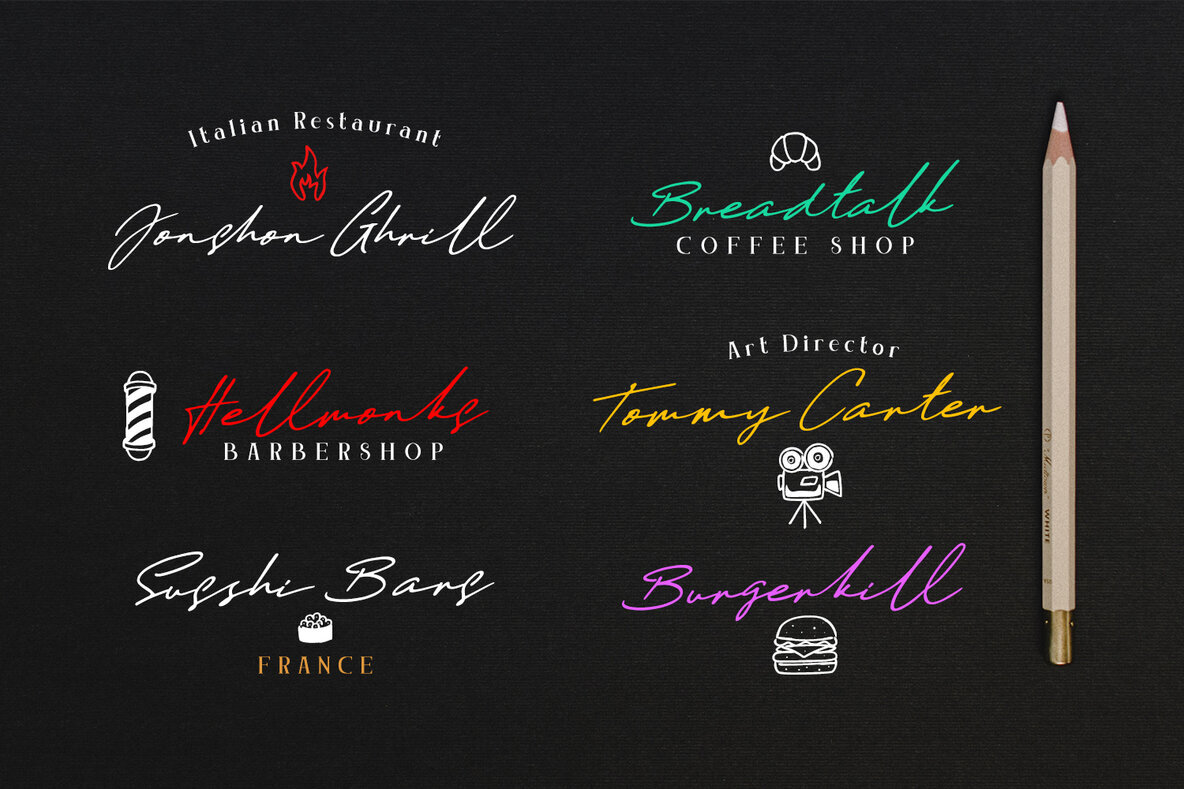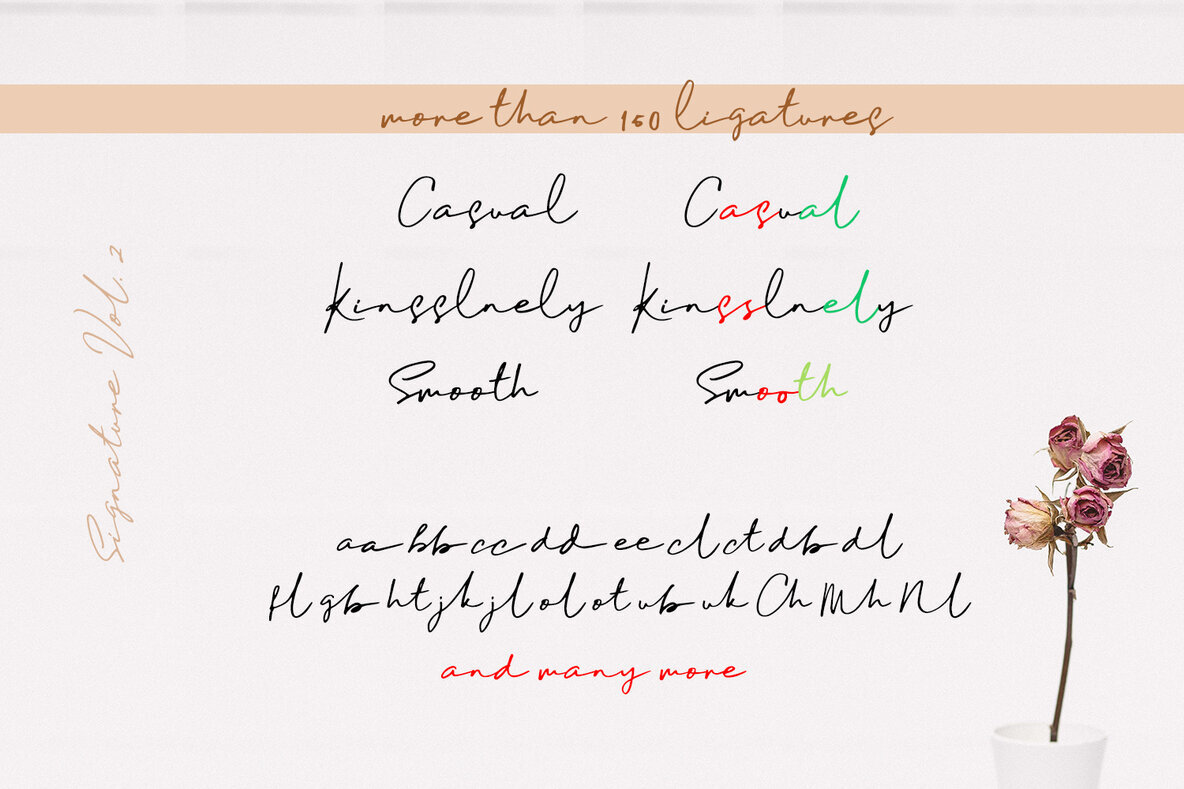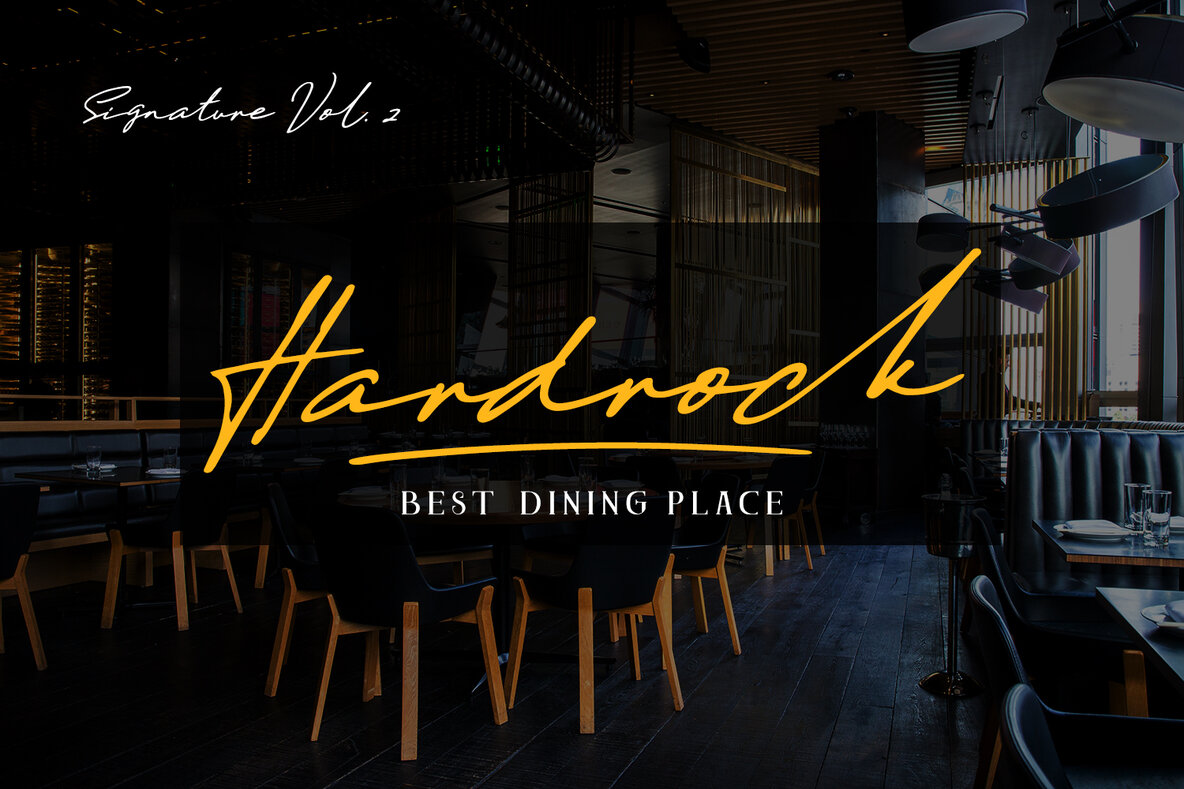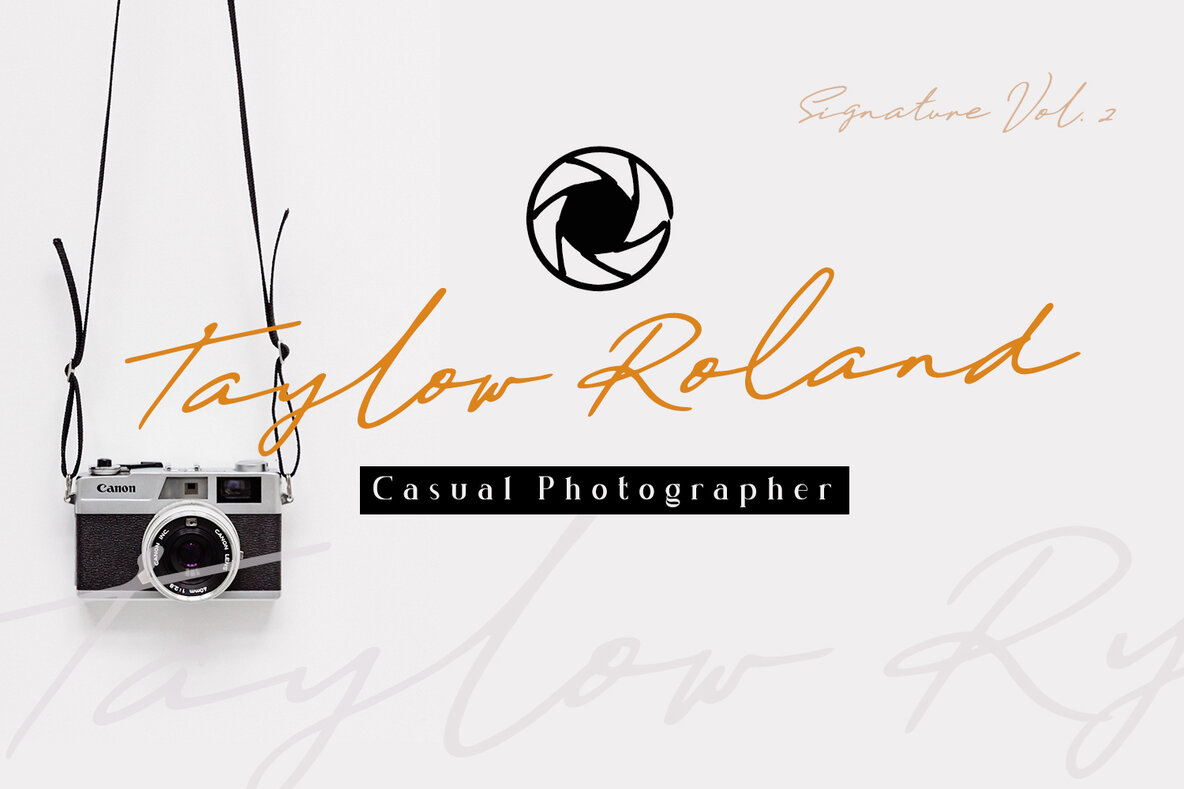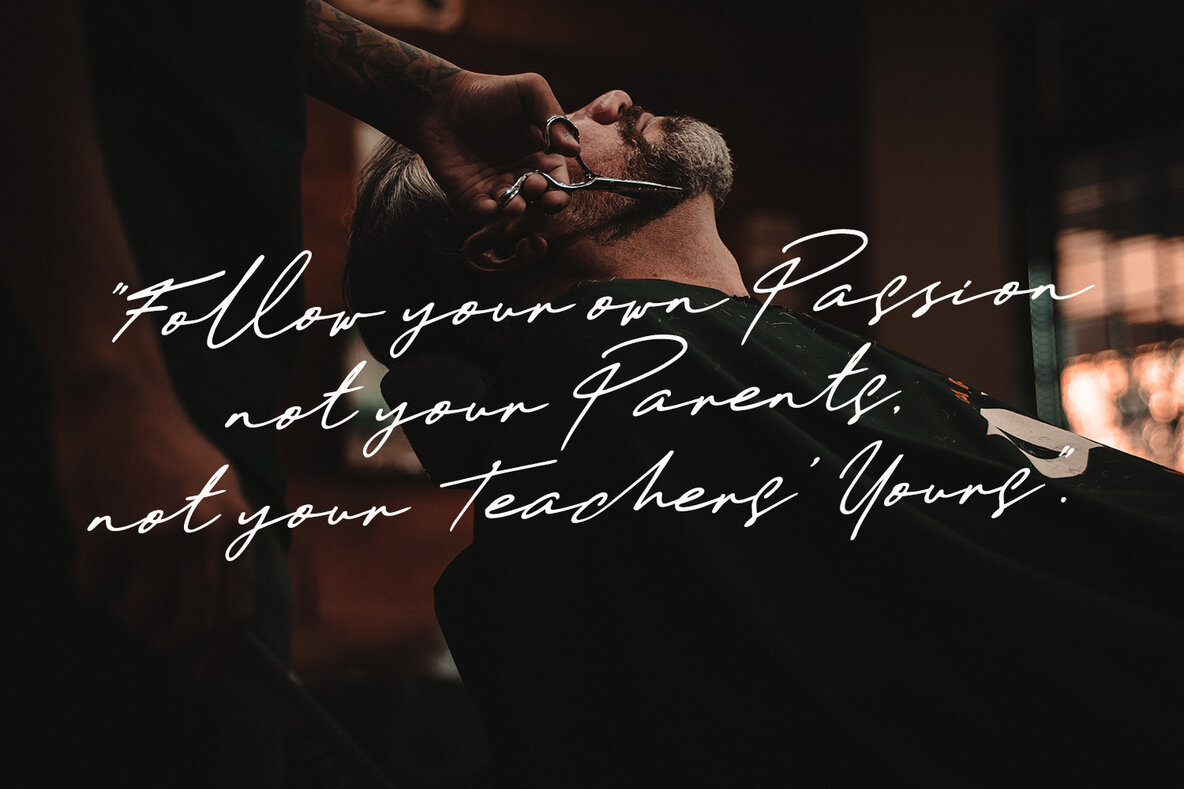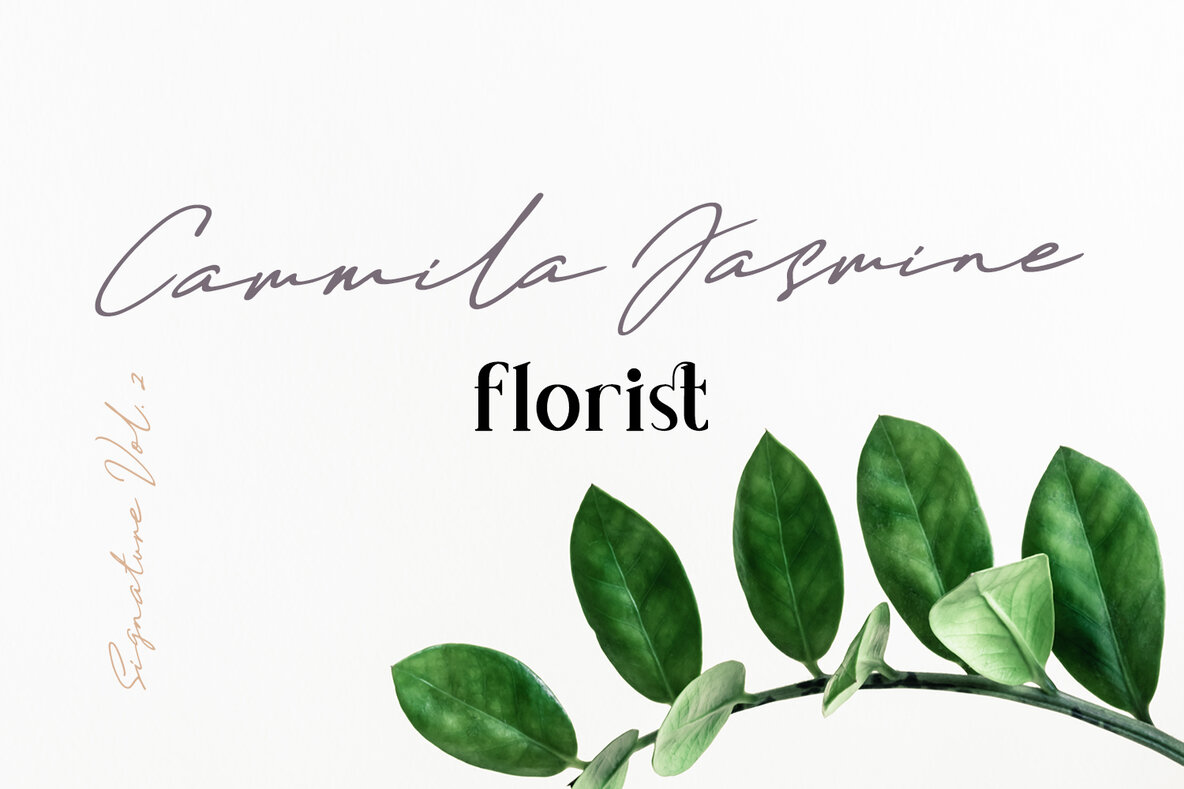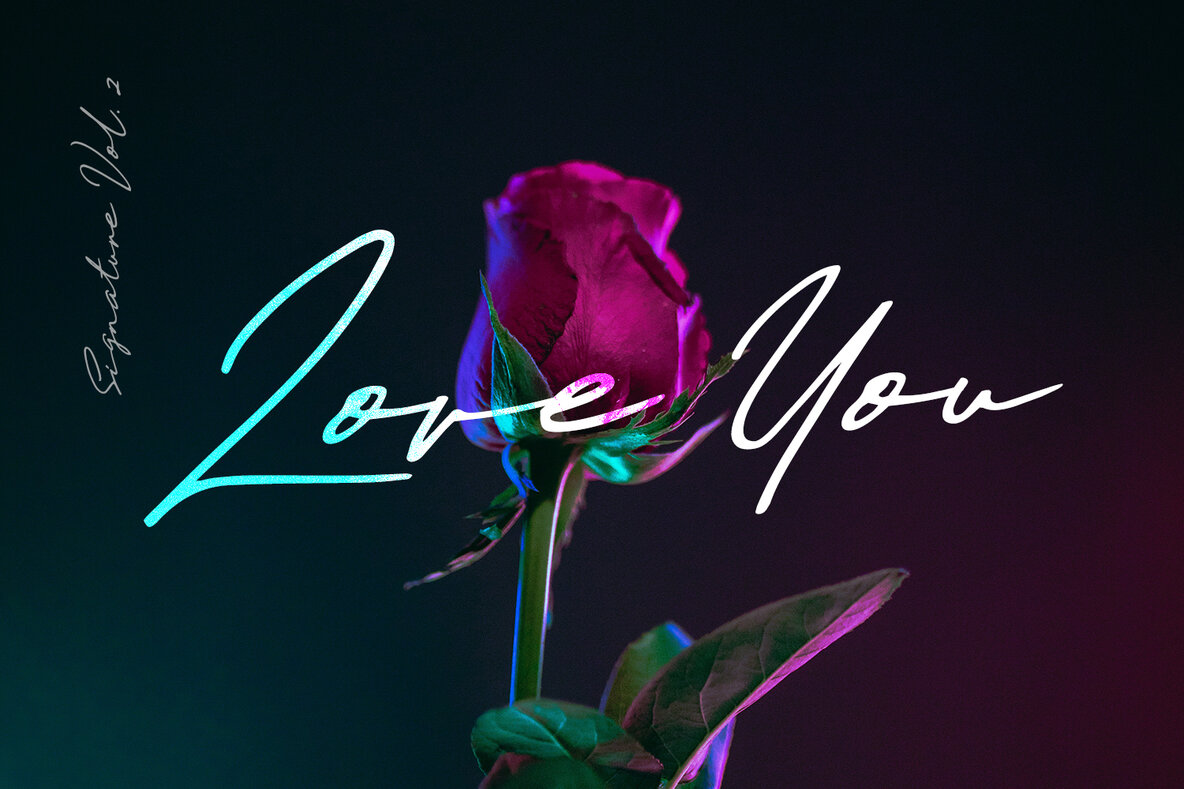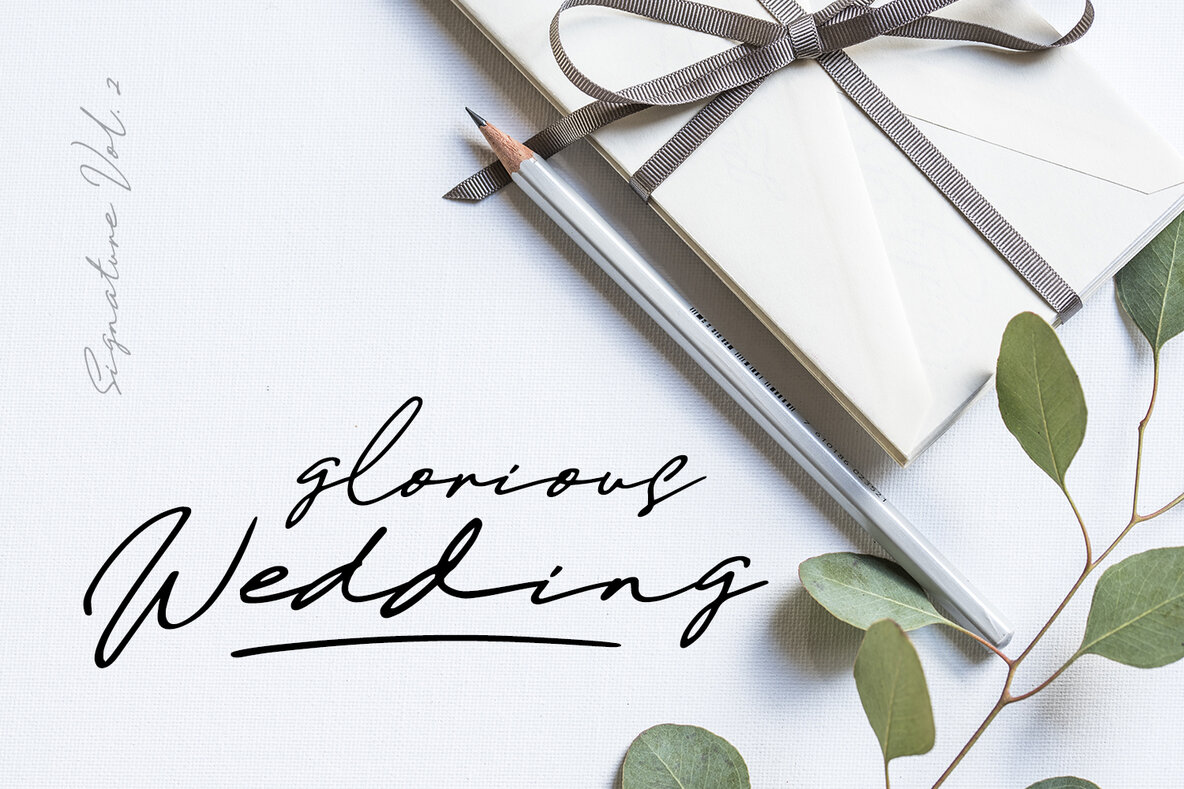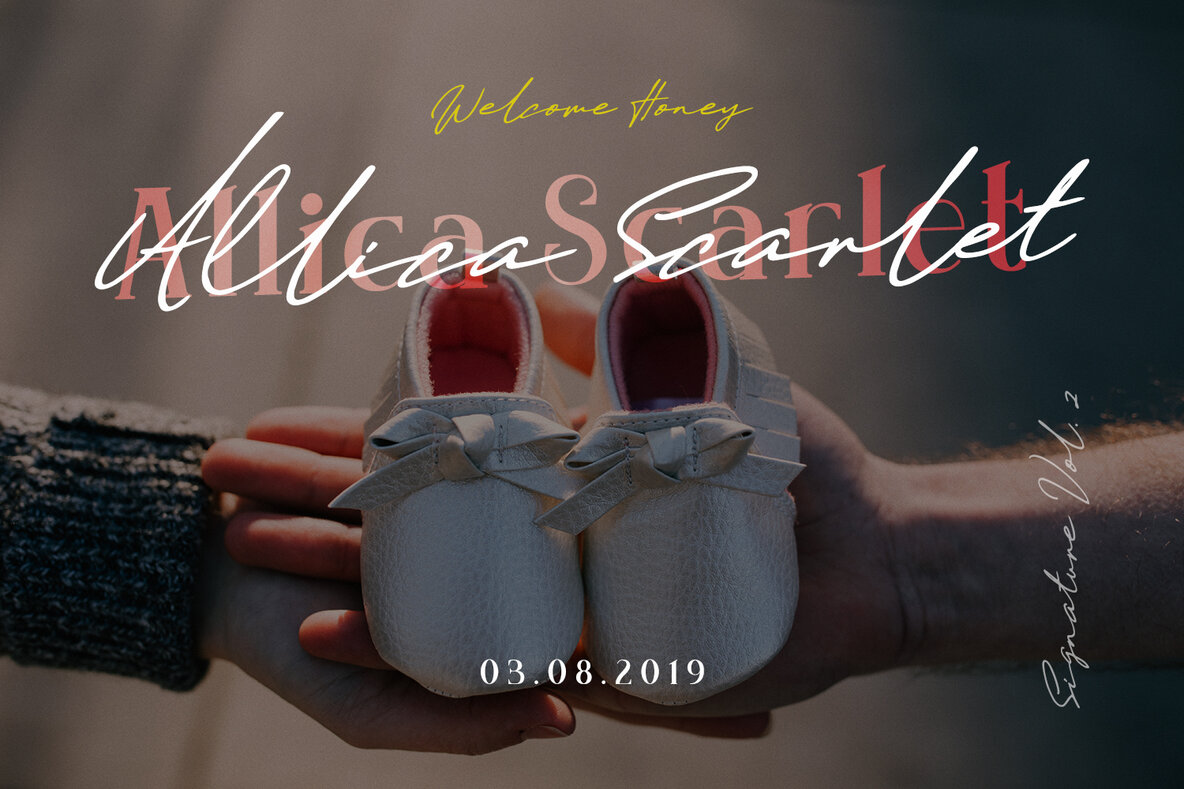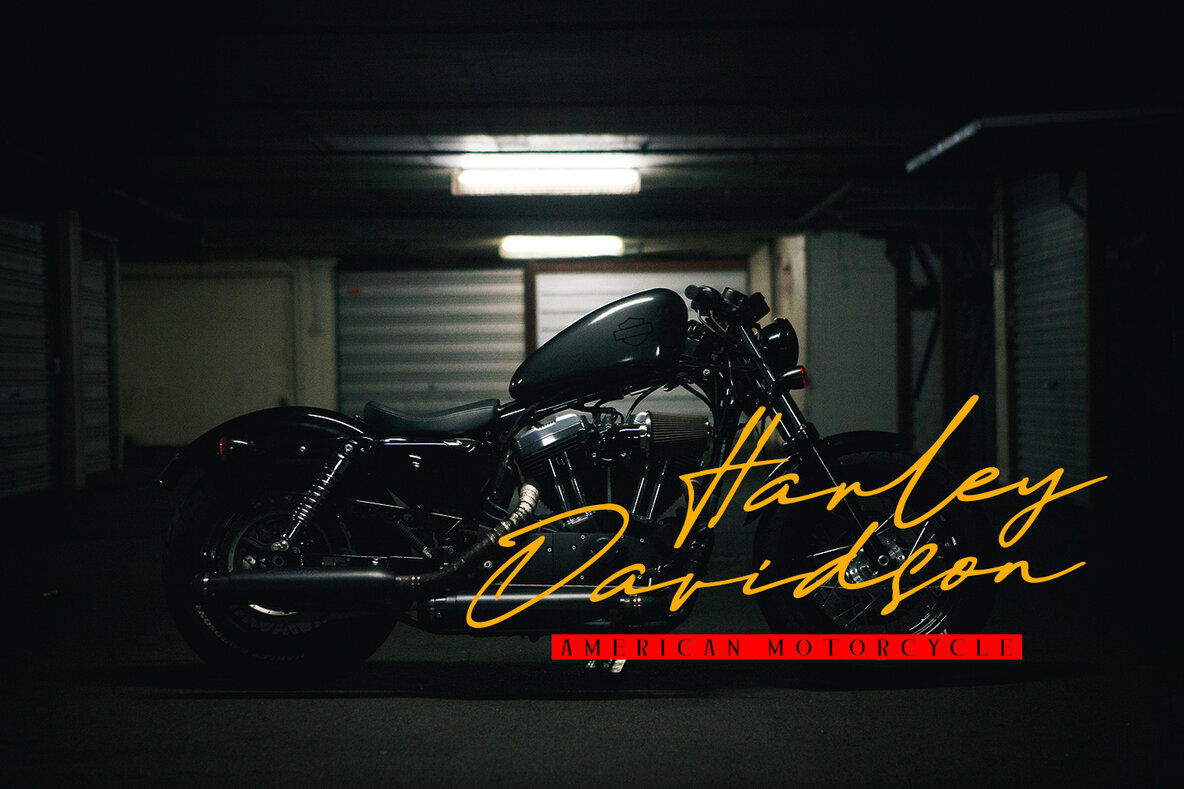
Daniels Font
Daniels Signature Regular
Daniels Signature Oblique
Crafted with meticulous attention to detail, the Daniels signature font emerges as a refined choice for those seeking a personal touch in design. With over 170 ligatures, this font showcases the fluidity and charm of a natural handmade signature, seamlessly adapting to diverse creative projects. Perfectly suited for: Daniels delivers both elegance and versatility, making it a timeless asset in any designer's toolkit.Daniels Signature Font: A Handmade Aesthetic